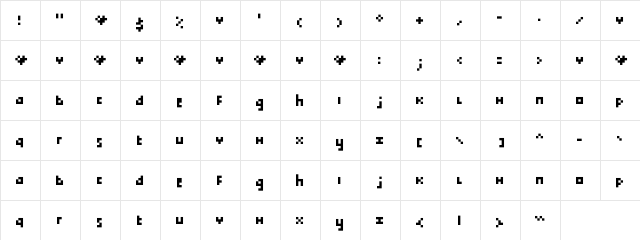
tokayz Regular
Design Context for tokayz Typeface
tokayz takes a measured approach to typography — its balanced proportions and neutral character make it a reliable workhorse for both digital and print work.